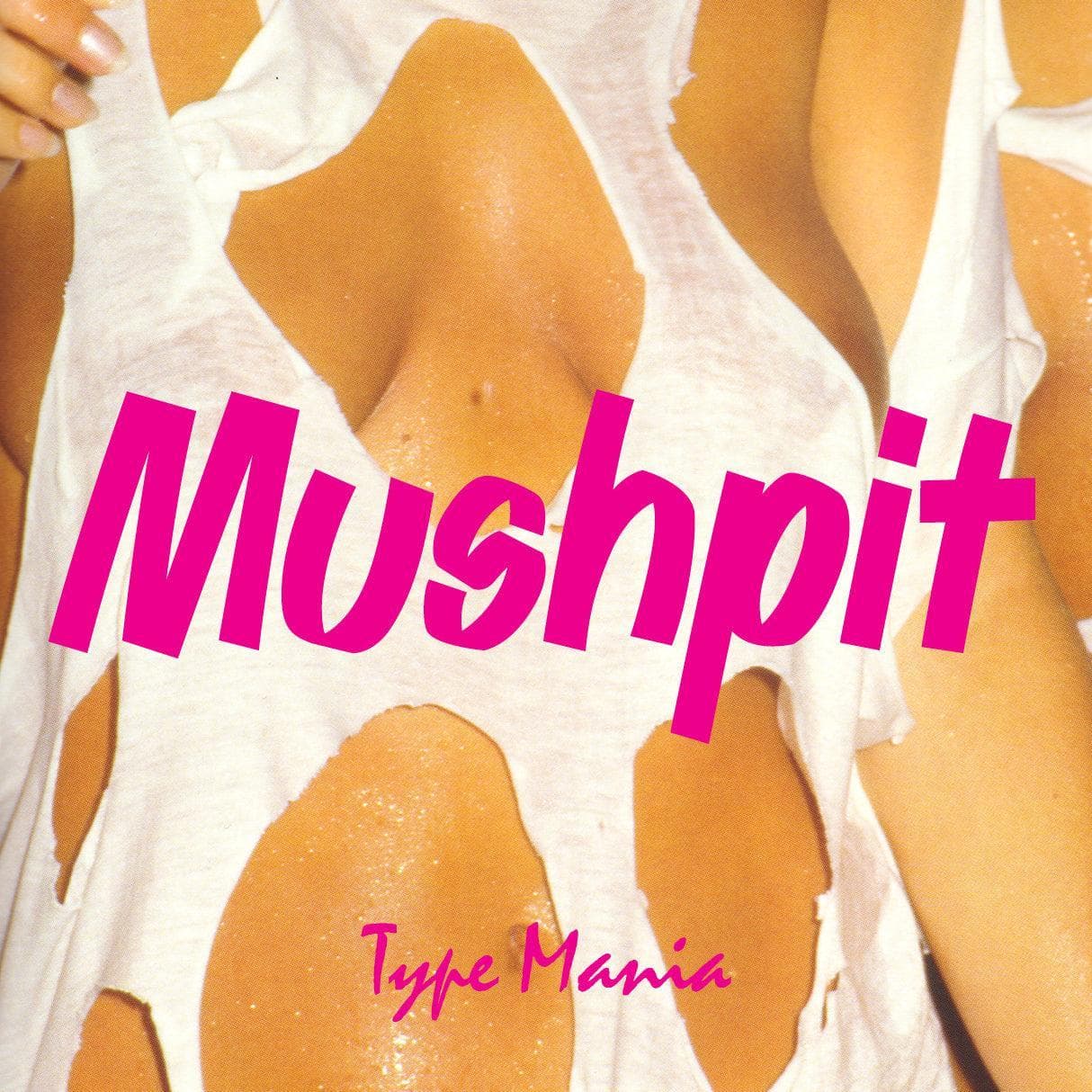
<p>Get familiar with <strong>Mushpit TM</strong>—the grubby marker font from Type Mania. Bold without trying too hard, rough but intentional. Designed for those who trust instinct over perfection. No filter.</p> <p><strong>Zip includes</strong></p> <ul> <li>OTF file</li> <li>TTF file</li> <li>WOFF2 file</li> </ul> <p><strong>Languages</strong></p> <ul> <li>Basic Latin</li> <li>Western European</li> <li>Euro</li> <li>Central European</li> <li>Pan African Latin</li> </ul> <p><em>Graphic Design is Easy (with Type Mania)®</em></p>